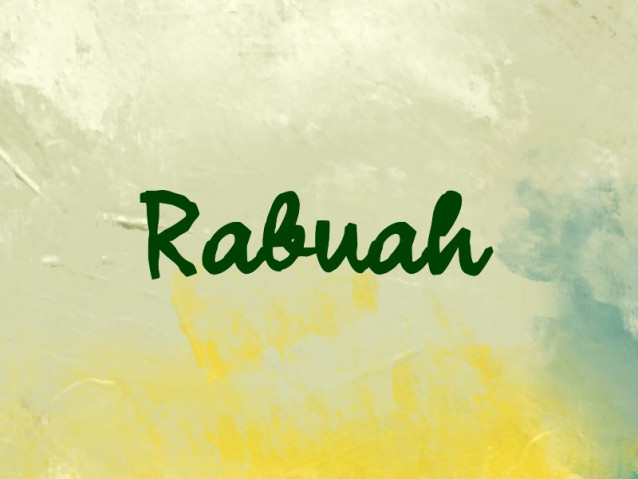
Rabuah Font
Rabuah Font is a simple and modern Brush font suitable for quotes, logos, headings, titles, and many more. Use it on any of your creative projects, and your designs will become outstanding!
Classification: Brush Fonts, Modern Fonts